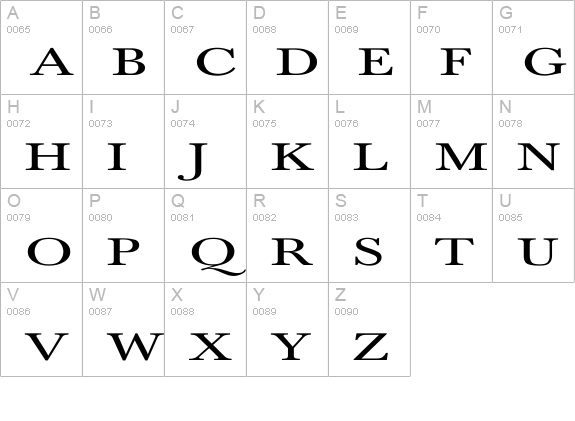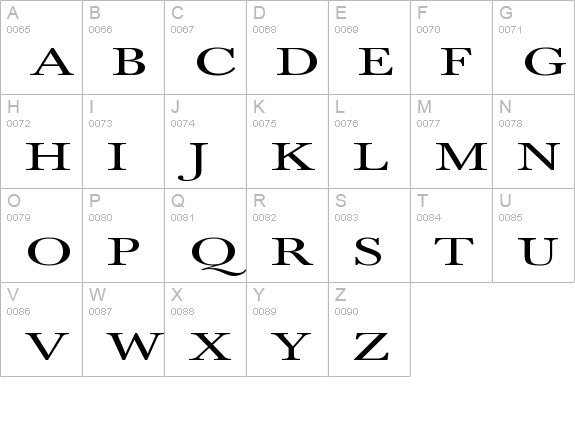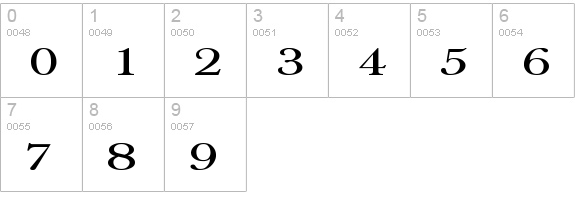
NewBaskerville-Normal Ex is the standard, neutral variant in the NewBaskerville typeface family \xE2\x80\x94 well suited to general body text, paragraphs, and standard typographic work.
NewBaskerville-Normal Ex is a timeless and elegant font that exudes sophistication and class. With its delicate serifs and balanced letterforms, this typeface is perfect for conveying a sense of refinement and tradition in any design project. The NewBaskerville-Normal Ex font is versatile and legible, making it an excellent choice for both digital and print applications. Best of all, this exquisite font is completely free to download at FontsMarket.com. Whether you're working on a professional project or simply looking to enhance your personal creations, NewBaskerville-Normal Ex is a valuable addition to any designer's toolkit. Download it today and elevate your designs with the beauty and grace of this stunning font.